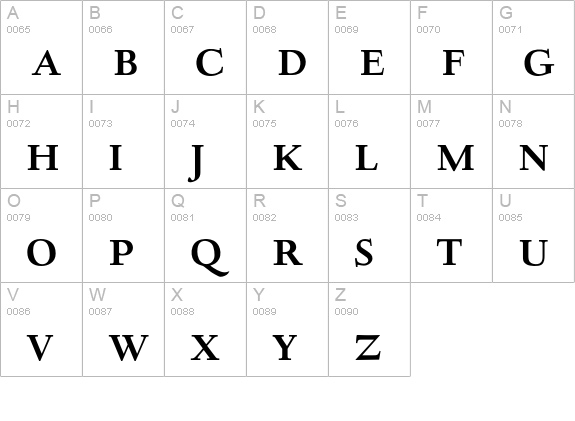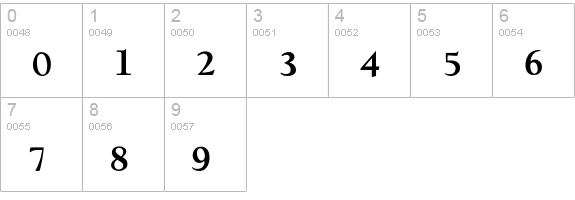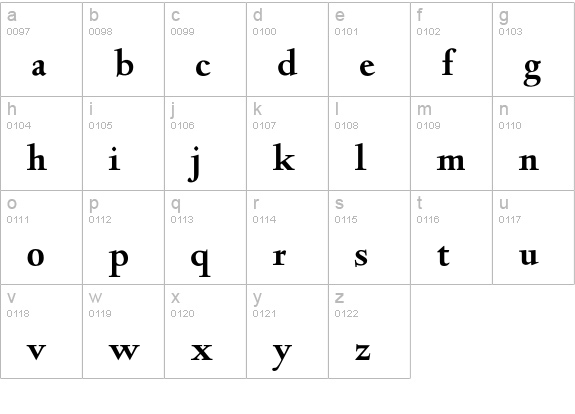
ChampagneBold Font Details
ChampagneBold is a stylish and elegant font that exudes sophistication and luxury. Its bold and sleek design makes it perfect for adding a touch of glamour to any project. The clean lines and timeless appeal of ChampagneBold make it a versatile choice for a wide range of design applications, from invitations to branding materials. What sets ChampagneBold apart is its versatility and ability to make a statement while maintaining a sense of refinement. Whether you're looking to create a high-end logo or elevate your marketing materials, ChampagneBold is sure to impress. Best of all, ChampagneBold is available for free download at FontsMarket.com, making it accessible to designers of all skill levels. Don't miss out on the opportunity to add this stunning font to your collection and take your designs to the next level with ChampagneBold.